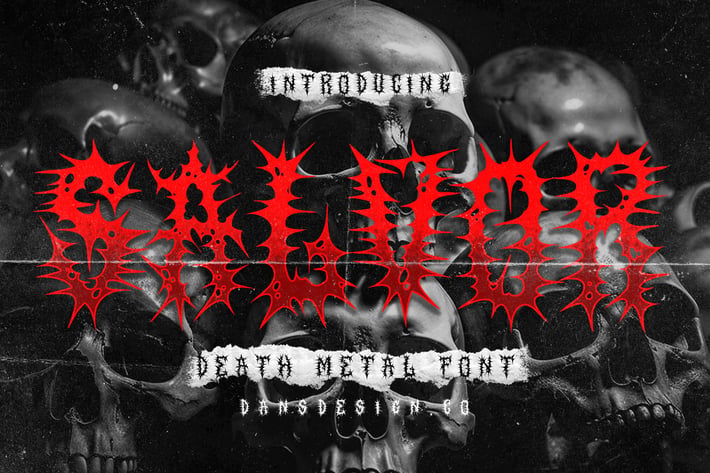
SALVOR Metal Horror Blackletter Font
SALVOR Metal Horror Blackletter Font is a distinct, highly detailed, and Horror Metal Font font. It would make a great choice for exquisite Music, Poster, retro-urban designs, tattoo business branding, logos, vintage designs, and more.